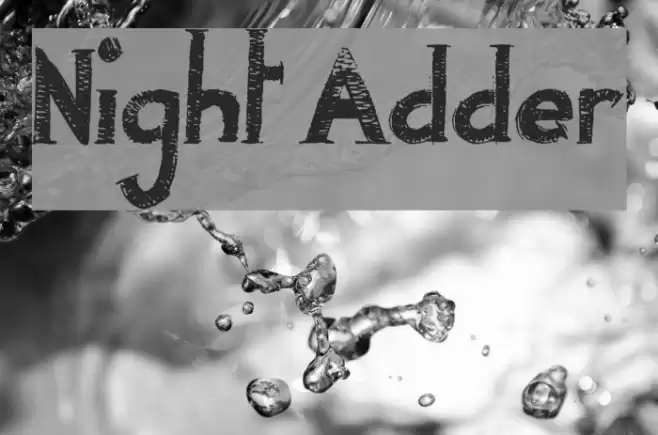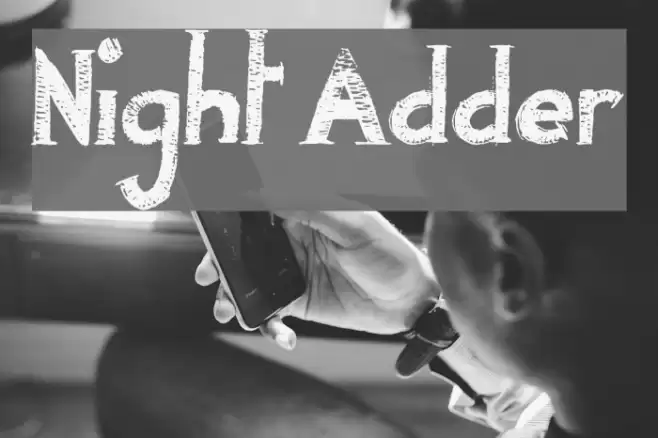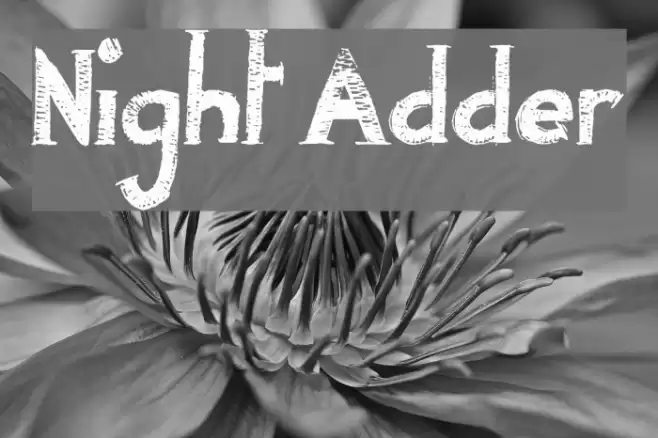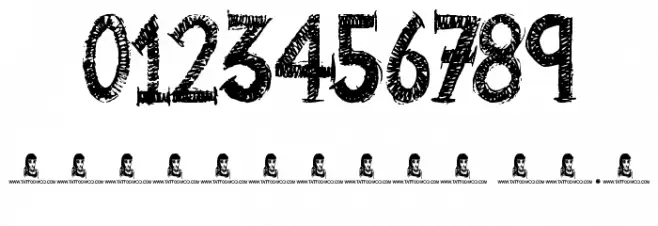
Night Adder Font
Night Adder Description
This font features a bold, textured style with a hand-drawn appearance. Each character is filled with a rough, sketch-like texture that adds a dynamic and energetic feel. The uppercase and lowercase letters maintain a consistent style, with slightly exaggerated serifs and varying stroke thicknesses that contribute to its unique look. The numbers and special characters follow the same design principles, ensuring a cohesive appearance across all glyphs. This font is ideal for projects that require a playful, artistic touch, such as posters, flyers, or creative branding materials.
A bold, textured font with a hand-drawn, sketch-like appearance from Uncategorized fonts.
- Proposed Projects: Ideal for posters, flyers, creative branding, and artistic projects.